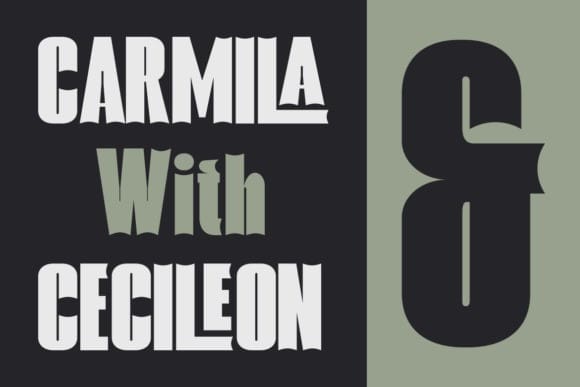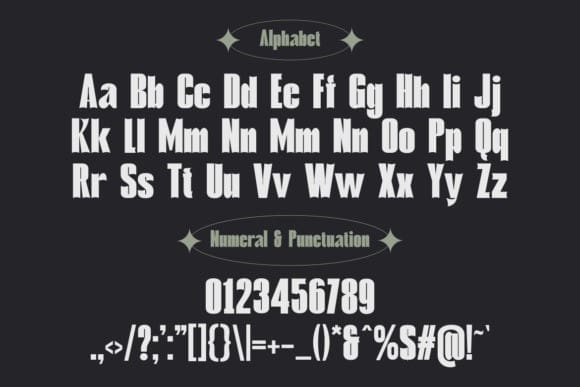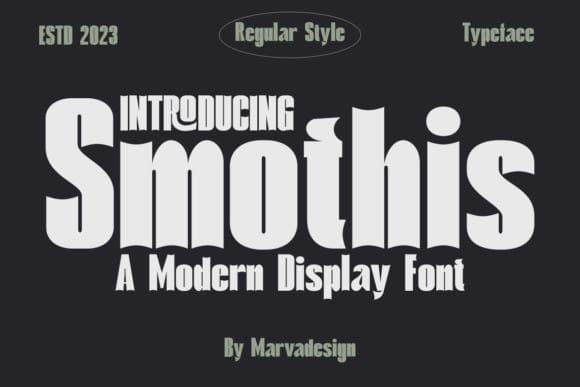
Smothis Font
Smothis Font is an incredibly unique display font. Masterfully designed to become a true favorite, this font has the potential to bring each of your creative ideas to the highest level